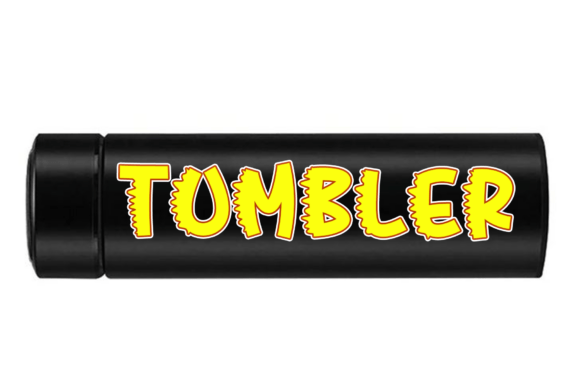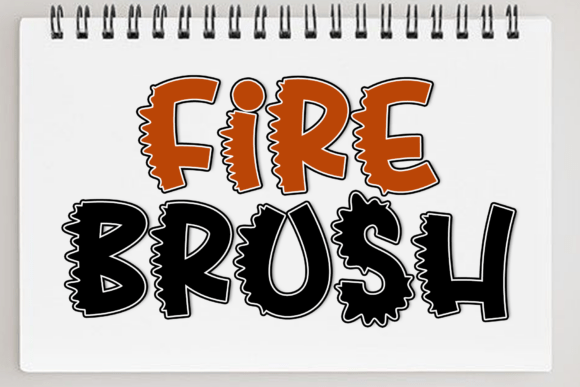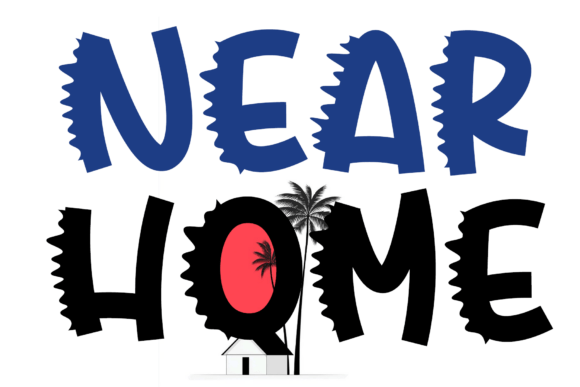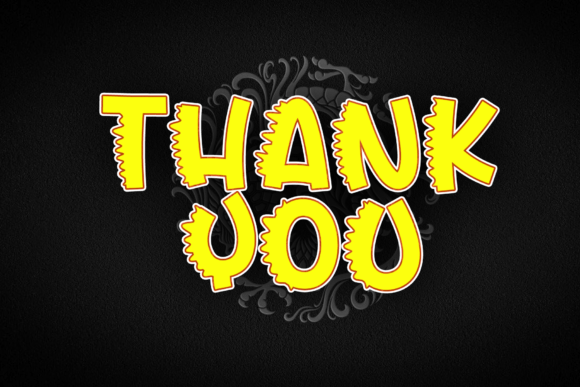
Introducing Flyer Dragon Font: A Timeless Handwritten Classic
Are you a designer or crafter looking for a font that can add a touch of personality and whimsy to your creations? Look no further than Flyer Dragon Font, a lovely and timeless handwritten font that’s perfect for creating eye-catching logos, branding, and quotes.
The Unique Charm of Flyer Dragon Font
What sets Flyer Dragon Font apart from other fonts is its unique and beautiful touch. Every letter has been carefully crafted to have its own distinct character, making it a true standout in the world of typography. Whether you’re looking to create a bold and statement-making design or a more subtle and understated one, Flyer Dragon Font is the perfect choice.
Flyer Dragon Font is a versatile font that’s perfect for a wide range of design applications. Whether you’re a professional designer or a crafter looking to add a personal touch to your creations, this font is sure to impress. Here are just a few ways you can use Flyer Dragon Font:
- Logos and Branding: Create a lasting impression with a custom logo or branding that showcases your unique style and personality.
- Quotes and Inspiration: Add a touch of inspiration and motivation to your designs with beautifully styled quotes that are sure to resonate with your audience.
- Stationery and Invitations: Add a personal touch to your stationery and invitations with Flyer Dragon Font, making them truly special and one-of-a-kind.
Why Choose Flyer Dragon Font?
So why choose Flyer Dragon Font over other fonts? Here are just a few reasons why designers and crafters love this font:
- Unique and Handwritten: Flyer Dragon Font is a truly unique and handwritten font, making it a standout in a world of generic and overused fonts.
- Timeless Appeal: Unlike trendy fonts that quickly go out of style, Flyer Dragon Font has a timeless appeal that’s sure to endure for years to come.
- Easy to Read: Despite its unique and artistic style, Flyer Dragon Font is easy to read and understand, making it perfect for a wide range of design applications.
Tips for Using Flyer Dragon Font
Here are a few tips for getting the most out of Flyer Dragon Font:
- Experiment with Colors: Flyer Dragon Font looks great in a wide range of colors, so don’t be afraid to experiment and find the perfect hue for your design.
- Play with Pairings: Try pairing Flyer Dragon Font with other fonts to create a unique and eye-catching design.
- Keep it Simple: Don’t overcomplicate your design – sometimes, the simplest designs are the most effective.
In conclusion, Flyer Dragon Font is a truly special font that’s perfect for designers and crafters looking to add a touch of personality and whimsy to their creations. With its unique and beautiful touch, timeless appeal, and ease of use, it’s no wonder that Flyer Dragon Font is quickly becoming a favorite among designers and crafters. So why wait? Download Flyer Dragon Font today and start creating your own eye-catching logos, branding, and quotes!